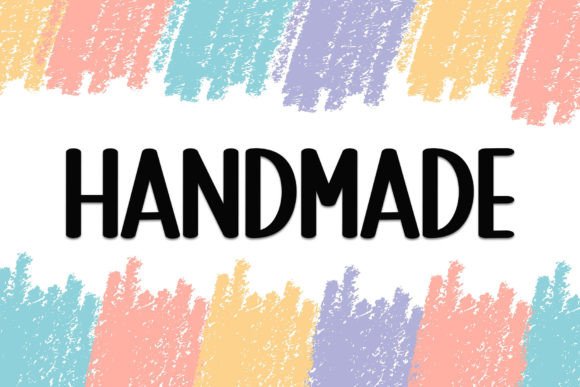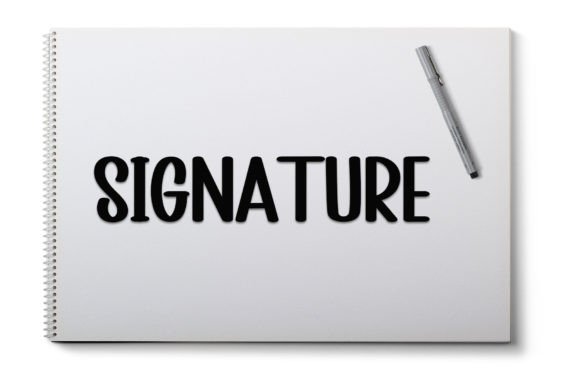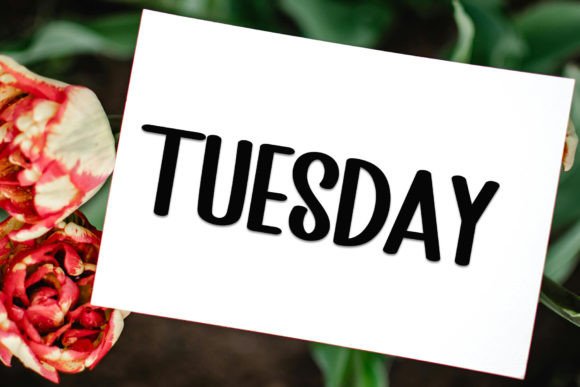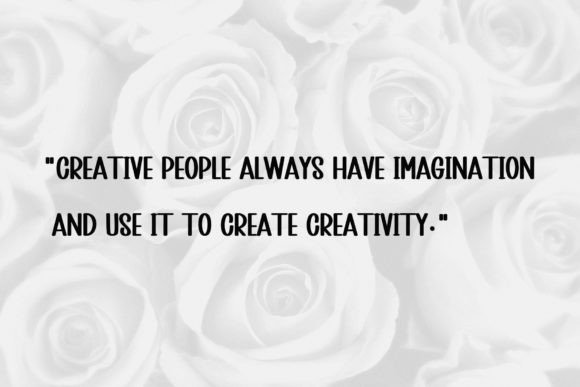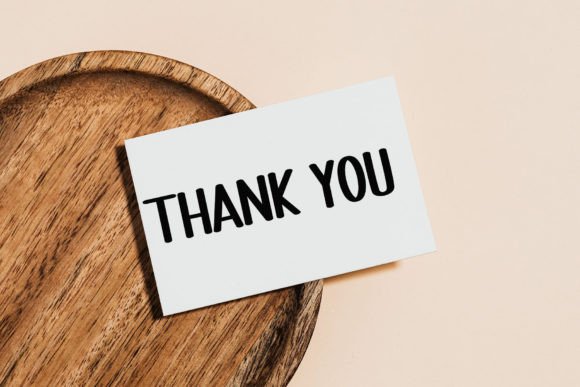
Adding a Touch of Elegance to Your Designs
As a designer, have you ever been stuck trying to find the perfect font to capture the essence of a special moment? Maybe it’s a birthday, a wedding, or a milestone anniversary – whatever the occasion, the right font can make all the difference. I still remember the first time I stumbled upon the Bright Sunday Font, and I knew I had to have it.
The Bright Sunday Font is a luxurious and stylish handwritten font, perfect for making special occasions even more memorable. Its elegant design and smooth letter flow add a touch of class to any project, making it a valuable addition to any designer’s toolkit. With its versatility and sophistication, the Bright Sunday Font is an excellent choice for designers looking to elevate their designs and leave a lasting impression.
Bright Sunday Font Key Features
- Font Family: Bright Sunday is a modern sans-serif font family.
- Font Size: The font comes in 6 font weights (Thin, Light, Regular, Medium, Bold, Black) and 3 font styles (Normal, Italic, Bold Italic).
- Unique Characteristics: Bright Sunday features a unique blend of geometric and organic shapes, with a focus on clean lines and minimal ornamentation.
Designer Review: Bright Sunday Font
Overall, I’m quite impressed with the Bright Sunday Font. ✨ It has a unique, modern feel that’s perfect for a wide range of design projects, from websites to social media graphics. The font’s clean lines and subtle flair make it easy to read and visually appealing.
- Key Strengths:
- ✨ Modern and stylish aesthetic
- ✨ Easy to read and legible
- ✨ Highly versatile and adaptable
However, there are a few limitations to consider. ⚠️ The font may not be the best choice for projects that require a more formal or traditional tone. Additionally, the font’s bold weight may not be as effective for smaller text sizes.
- Limitations:
- ⚠️ May not be suitable for formal or traditional designs
- ⚠️ Bold weight may not be effective for smaller text sizes
In conclusion, I would recommend the Bright Sunday Font for designers looking for a modern and stylish typeface. While it may not be the best choice for every project, its versatility and adaptability make it a great addition to any design arsenal.
The Bright Sunday Font is suitable for:
- Creative projects that require a playful and modern touch
- Branding and marketing materials that need a unique and eye-catching font
- Editorial content that requires a clean and easy-to-read font
To get the most out of the Bright Sunday Font, try:
- Combining it with other design elements to create a visually appealing layout
- Using it in creative and innovative ways to stand out from the crowd
- Experimenting with different font sizes and styles to find the perfect balance
Q: Does the Bright Sunday Font support Unicode characters?
Yes, the Bright Sunday Font supports Unicode characters, allowing you to access a wide range of languages and symbols. The font includes a comprehensive character set, including Latin, Cyrillic, and Greek scripts, as well as various punctuation and special characters.